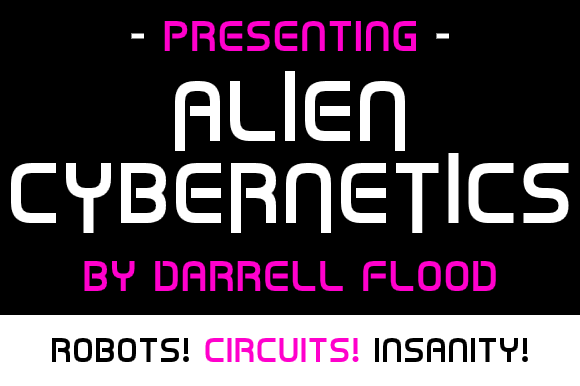
Alien Cybernetics Font: The Ultimate Sci-Fi Font for Futuristic Themes
In the world of typography, fonts play a crucial role in conveying the tone and aesthetic of a design. When it comes to sci-fi and futuristic themes, a font that exudes a sense of high-tech sophistication is essential. This is where the Alien Cybernetics Font comes in – a sleek and modern sans-serif font that is perfect for creating an otherworldly atmosphere in your designs.
What is Alien Cybernetics Font?
Alien Cybernetics is a cutting-edge font designed specifically for sci-fi and futuristic themes. Its curved style and high-tech aesthetic make it an ideal choice for designers looking to create a sense of advanced technology and innovation in their work. The font’s sleek lines and futuristic curves evoke a sense of speed and dynamism, making it perfect for use in a variety of design applications, from movie posters and video game titles to website headers and marketing materials.
Key Features of Alien Cybernetics Font
The Alien Cybernetics Font boasts a range of features that make it an excellent choice for designers. Some of its key features include:
- High-tech curved style: The font’s curved lines and smooth edges give it a highly advanced and futuristic feel.
- Sleek and modern design: The font’s sleek and modern design makes it perfect for use in a variety of design applications, from print to digital.
- Excellent legibility: The font’s clear and legible design ensures that your text is easy to read, even at small sizes.
- Support for multiple languages: The font supports a range of languages, making it a great choice for designers working on international projects.
Uses for Alien Cybernetics Font
The Alien Cybernetics Font is a versatile font that can be used in a variety of design applications. Some of the most popular uses for the font include:
- Movie posters and title sequences: The font’s futuristic style makes it perfect for use in movie posters and title sequences, especially for sci-fi and action films.
- Video game titles and UI: The font’s high-tech aesthetic makes it a great choice for use in video game titles and user interfaces.
- Website headers and marketing materials: The font’s sleek and modern design makes it perfect for use in website headers and marketing materials, such as brochures and flyers.
- Film and television production: The font’s futuristic style makes it a great choice for use in film and television production, such as in opening credits and title sequences.
Benefits of Using Alien Cybernetics Font
There are many benefits to using the Alien Cybernetics Font in your designs. Some of the most significant advantages include:
- Instant recognition: The font’s futuristic style and high-tech aesthetic make it instantly recognizable as a sci-fi or futuristic theme.
- Professional look and feel: The font’s sleek and modern design gives your designs a professional look and feel that is sure to impress.
- Easy to read: The font’s clear and legible design ensures that your text is easy to read, even at small sizes.
- Versatile: The font’s versatility makes it perfect for use in a variety of design applications, from print to digital.
Tips for Using Alien Cybernetics Font
To get the most out of the Alien Cybernetics Font, here are a few tips to keep in mind:
- Use it sparingly: While the font is perfect for headings and titles, it’s best to use it sparingly to avoid overwhelming your design.
- Pair it with a sans-serif font: Pairing the Alien Cybernetics Font with a sans-serif font can create a nice contrast and add visual interest to your design.
- Experiment with different colors: The font’s sleek and modern design looks great in a range of colors, so don’t be afraid to experiment and find the perfect hue for your design.
In conclusion, the Alien Cybernetics Font is a sleek and modern sans-serif font that is perfect for creating a futuristic atmosphere in your designs. Its high-tech curved style and excellent legibility make it an ideal choice for designers looking to create a sense of advanced technology and innovation in their work. With its versatility and professional look and feel, the Alien Cybernetics Font is sure to become a go-to font for designers working on sci-fi and futuristic themes.